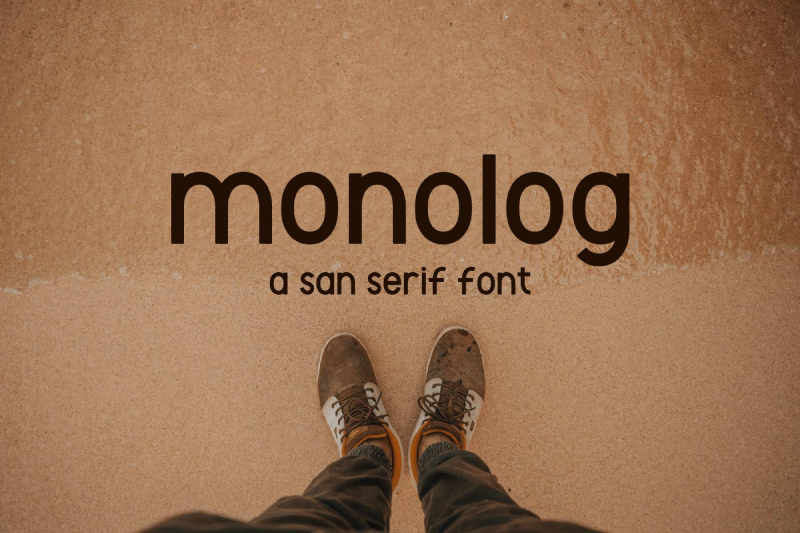
Monolog
by
Sandylukee
Sans serif
Monolog is clean, simple, elegant san serif font. great for any purpose such as logo brand, banners, youtube thumbnails etc.